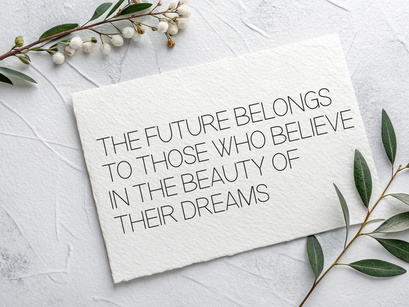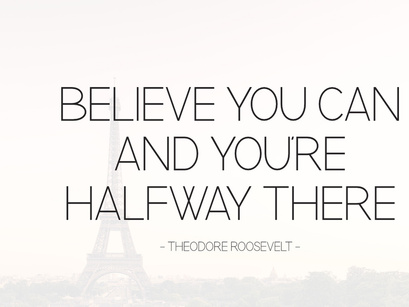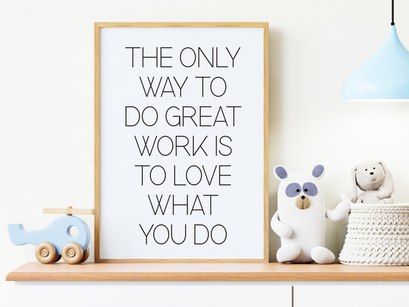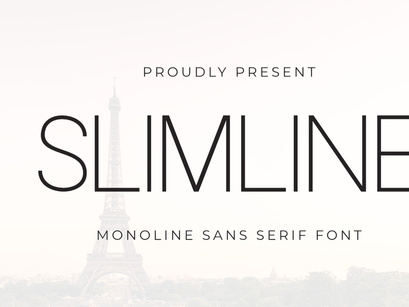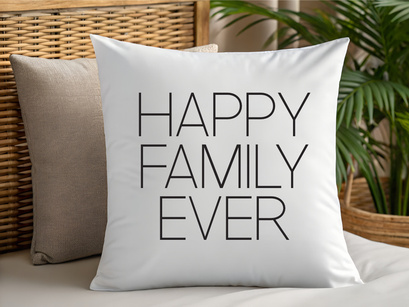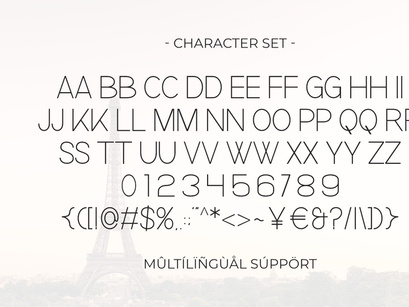
Slimline - Monoline Sans Serif Font
Slimline
Slimline is a modern, monoline sans serif font that is defined by its clean and elegant appearance. Its thin and consistent strokes create a minimalist and sophisticated look, making it perfect for projects that require a light and refined touch. This font is highly versatile and works beautifully for high-end branding, wedding invitations, modern logos, and editorial design. Its delicate, simple aesthetic ensures that it is both legible and visually pleasing.